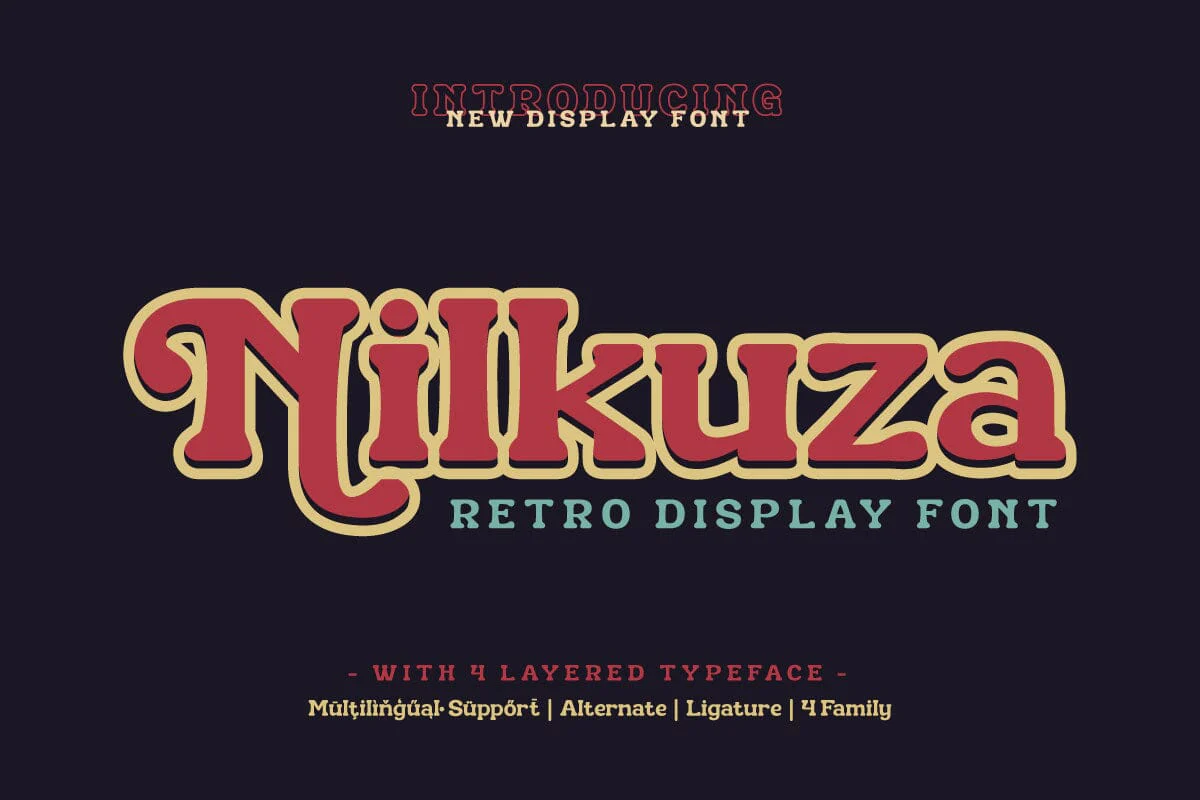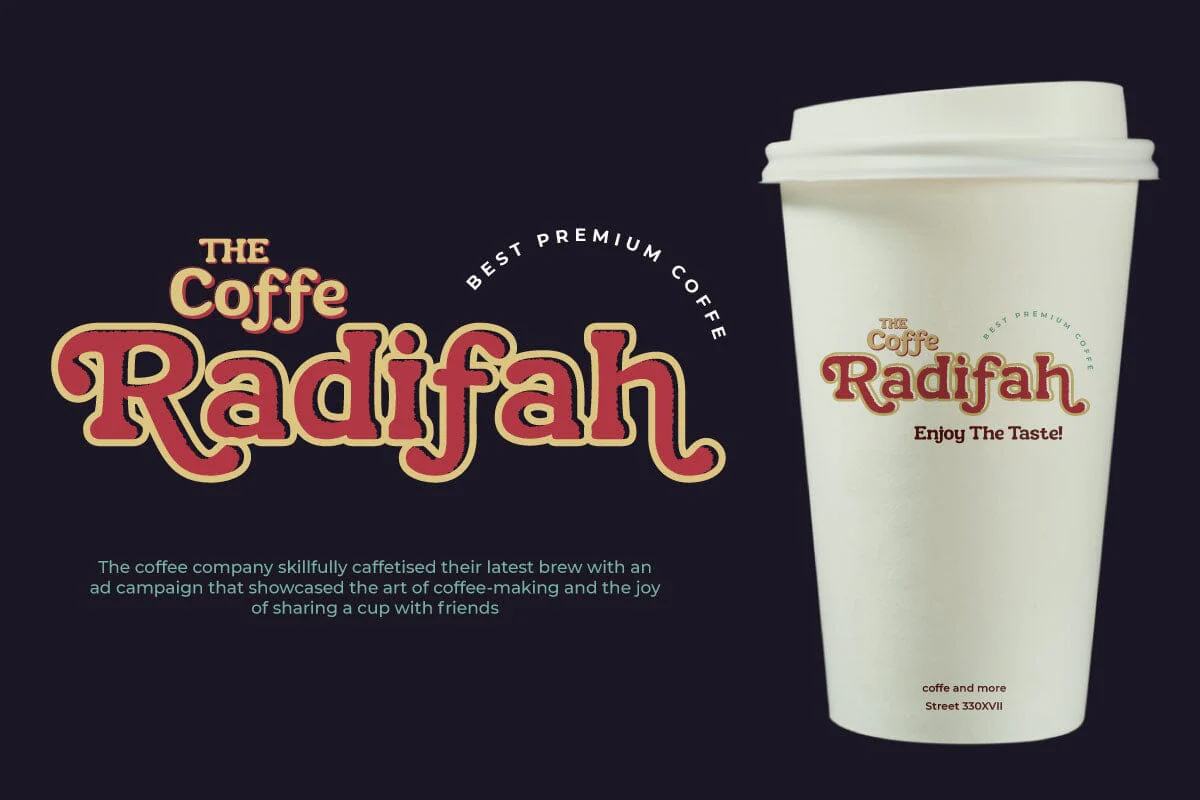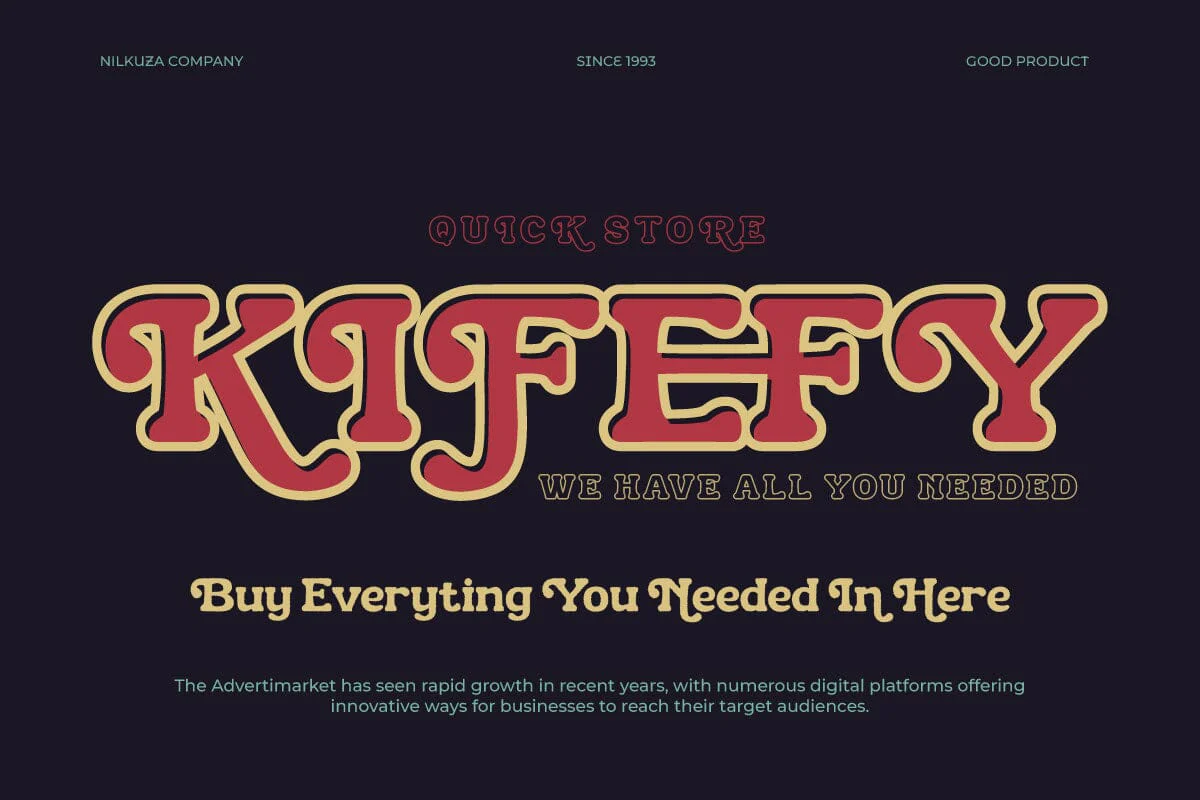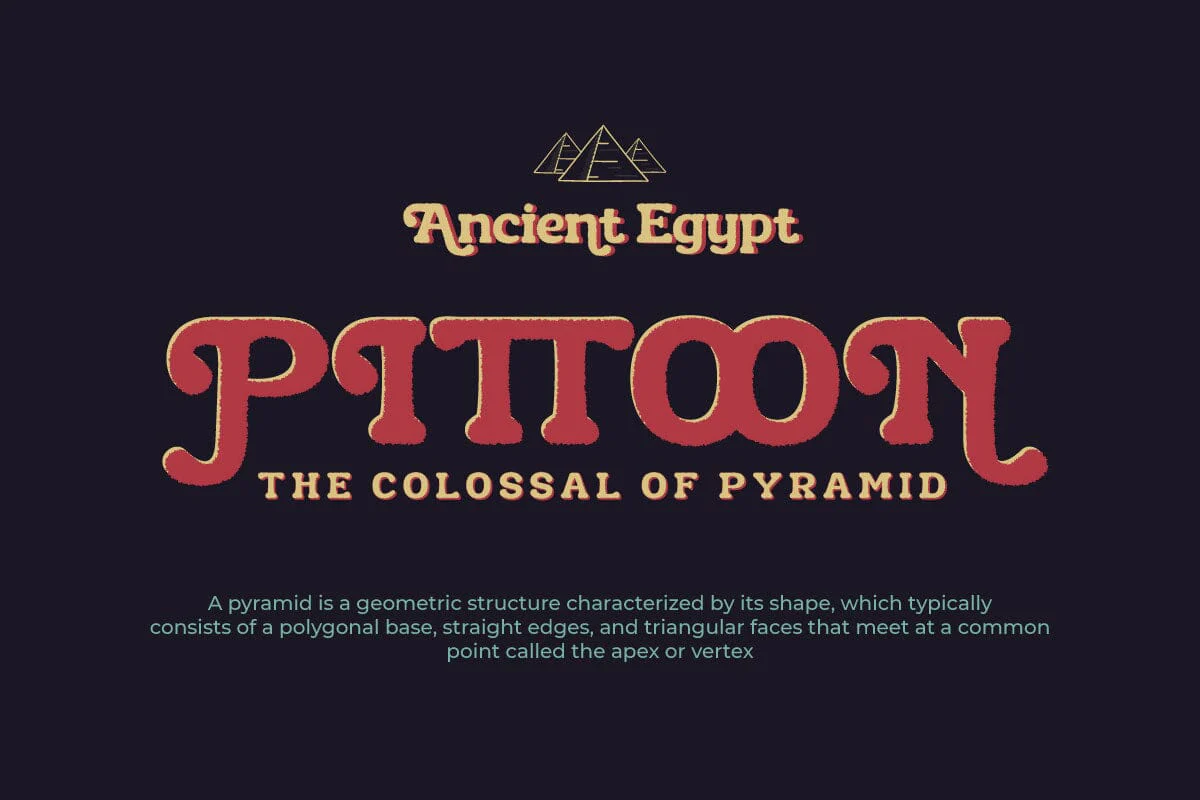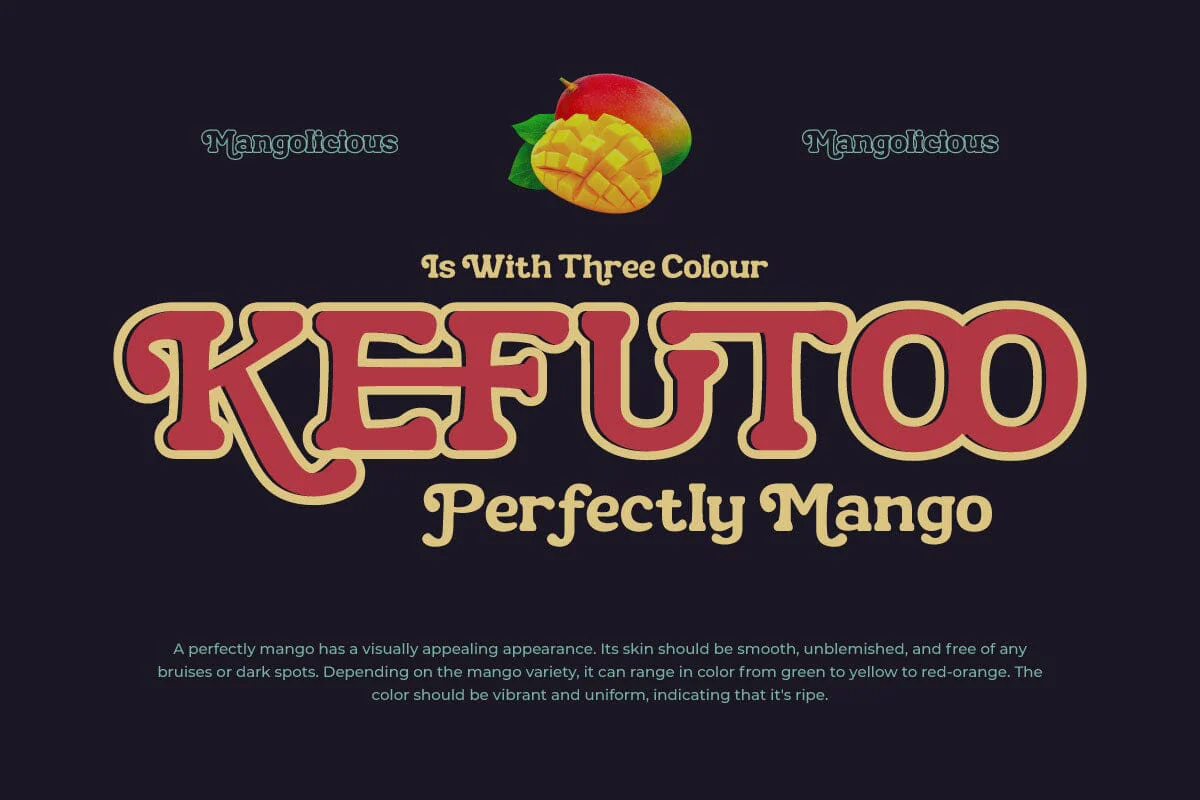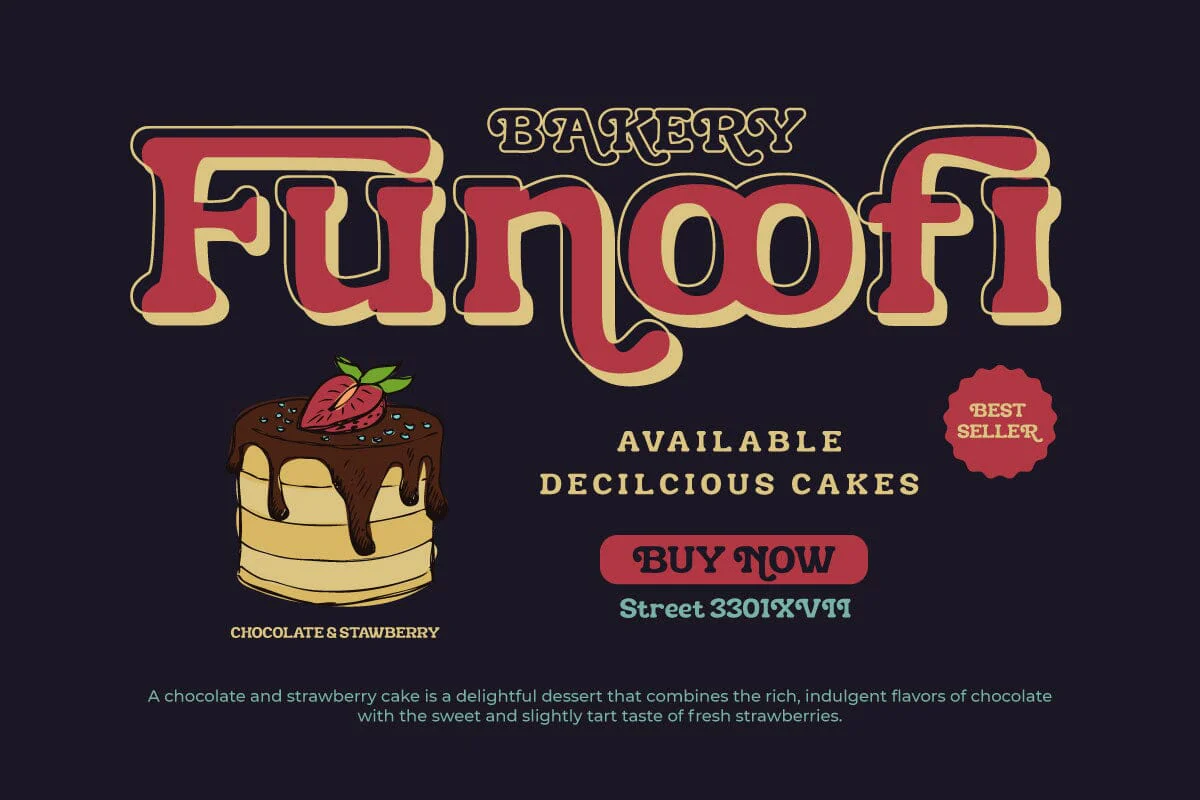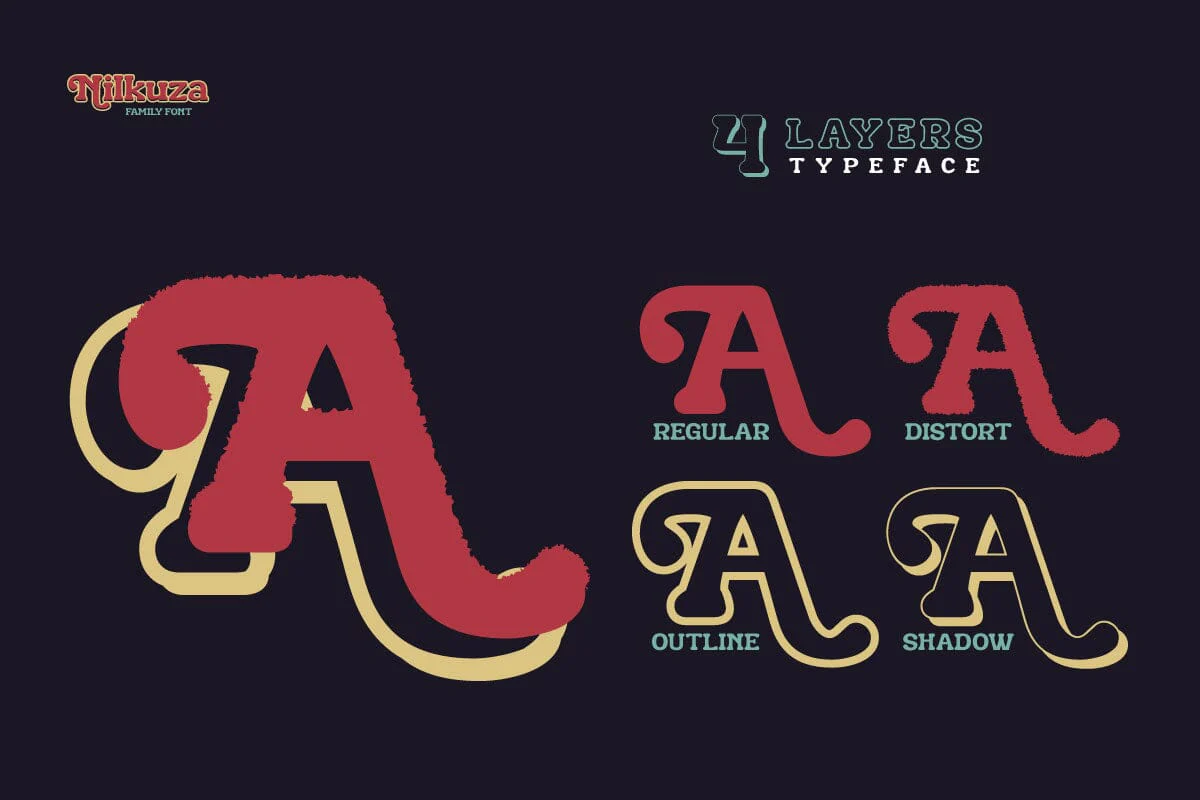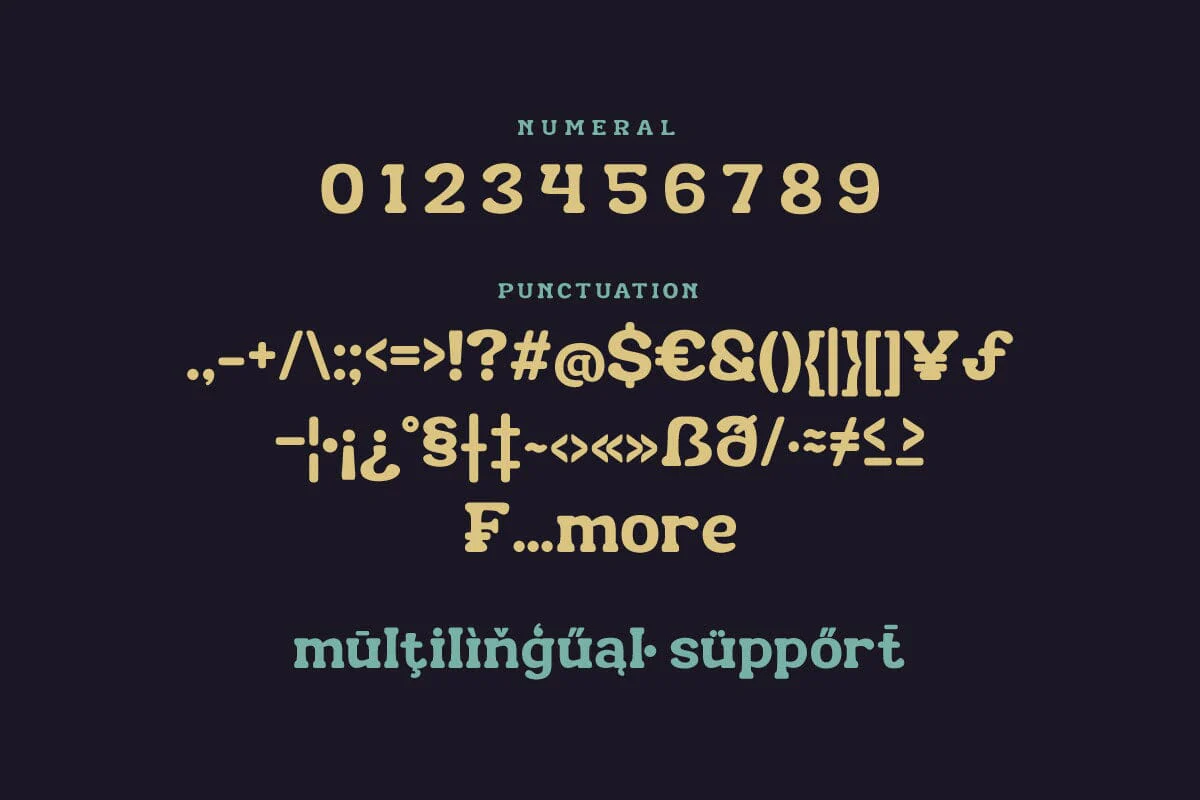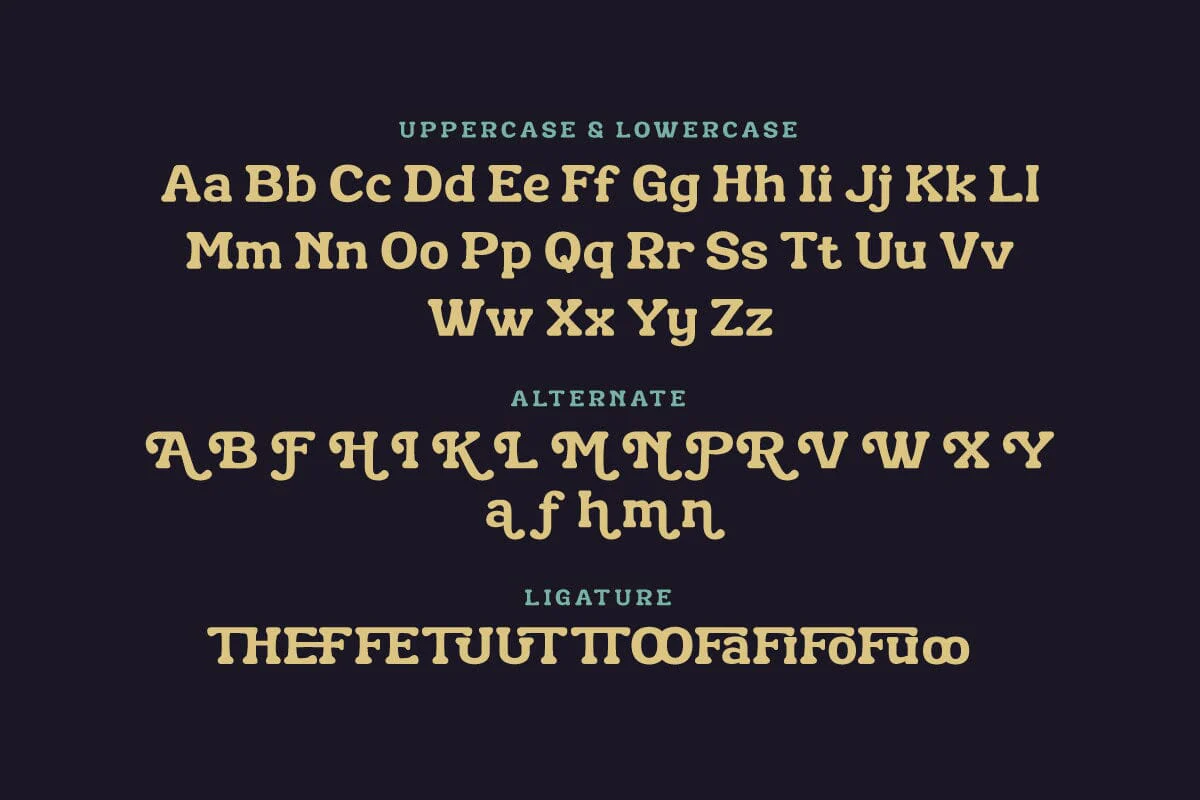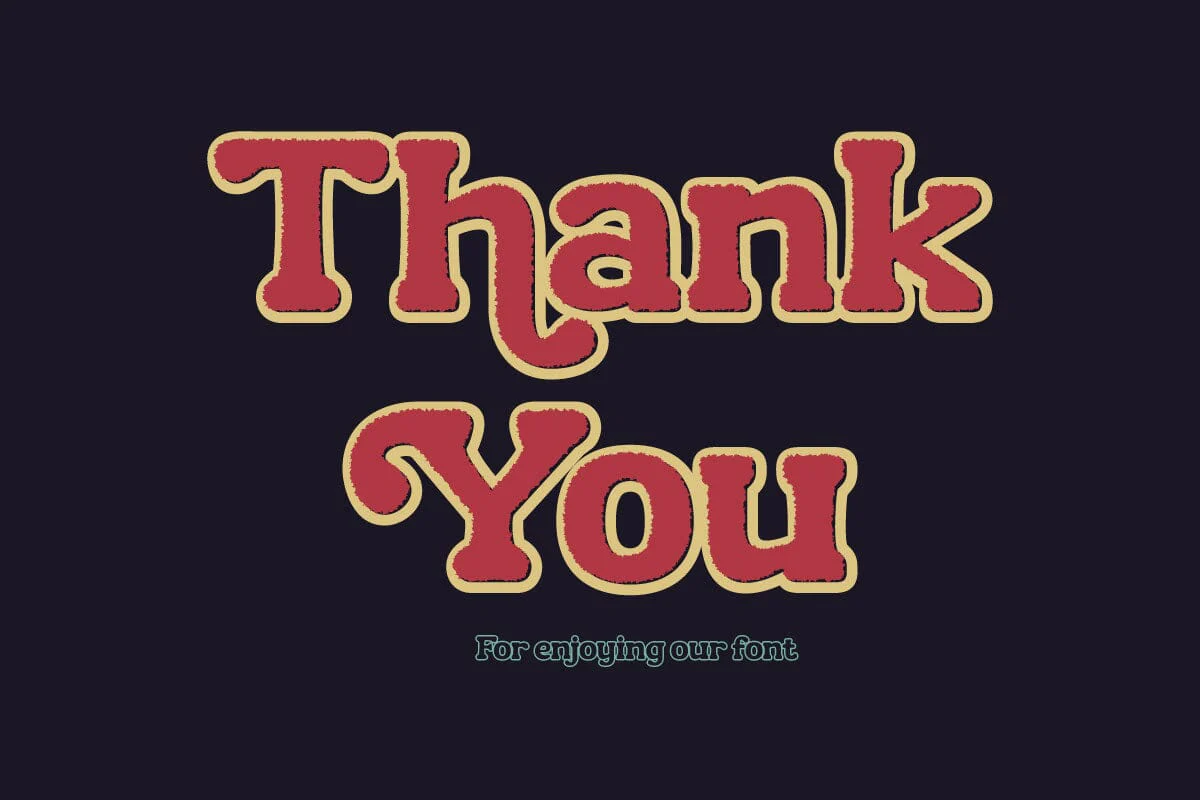
Nilkuza - Retro Display Font
Welcome to the world of typography full of charm and nostalgia! Nilkuza is a Retro Display style font that brings a classic touch and fun to any of your projects. It's the perfect solution to bring a unique, vintage, and rustic look to life in a variety of visuals. Nilkuza is not just an ordinary font. With four family variants that include regular, distort, outline, and shadow, this font provides unlimited flexibility to explore your creativity. By using the ligature and alternate features, you can create unlimited letter combinations, making each of your works truly unique. We understand that every project has its own character and language, that's why Nilkuza supports multiple languages, so you can connect with a global audience without limitations. Make your every visual appearance an unforgettable nostalgic journey with Nilkuza. Get this font right away and take your projects into a dazzling era!